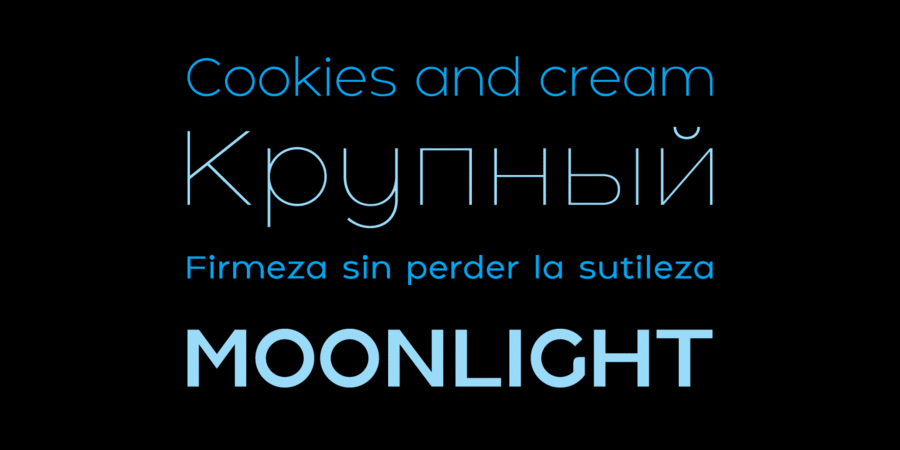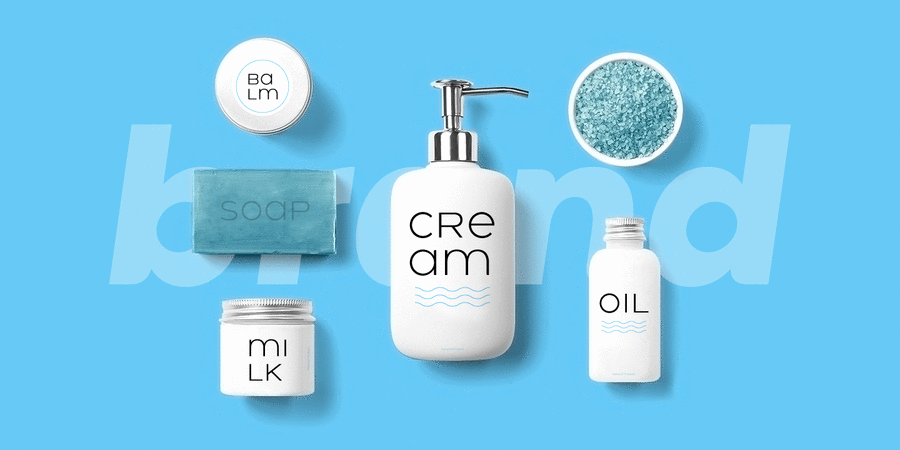
About HolgadaIt is a geometric sans serif typeface with refined rounded endings that provide a soft and friendly appearance. Its generic shapes make it suitable for any kind of project, text length and size. Thanks to its clear legibility, it can be used in long body texts in very small sizes, in big size headlines and everything in between. The rounded endings not only provide a particular softness when used in body text, but also a distinctive touch when used in display situations such as logos and headlines. Holgada consists of 12 styles, each containing small caps and glyph coverage for several languages. The font family has been designed for Graviton Font Foundry by Pablo Balcells in 2020.
Associations for font family HolgadaTypeface personality and character:
delicate, clean, easy, chilly, fashionable, thin, modern, laconic, high-quality, weightless, transparent, intimate, fragile, tender, air, glass, sharp, wire, round, calm, fresh, clear, flat, peaceful, urban, strict, simple, accurate, low key, smooth, generous, kind, affable, children, cute, lush, friendly, cozy, pleasant, benevolent, plastic, family, delicious, comfortable, peppy, home, nice, healthy, notable, splashy, bright, hipster, honest, eco-friendly, confidence, warm, appetizing, beautiful, distinctive, orderly, juicy, ripe, summer, cutie, spectacular, cultural, select, polite
beauty, Eau de Toilette, cosmetics, fashion, diet, hygiene, purity, perfumery, lotion, shampoo, barbershop, design, ASMR, Instagram, health, city, navigation, medicines, clothes, footwear, interior, yoga, sky, water, device, technology, bus, retail, food, milk, baby food, family, game, juice, children's book, hotel, house, pharmacy, transport, grocery, entertainment, celebration, ketchup, bubble gum, diaper, restaurant, paint, store, chips, fruit, marmalade Typeface associated with age: